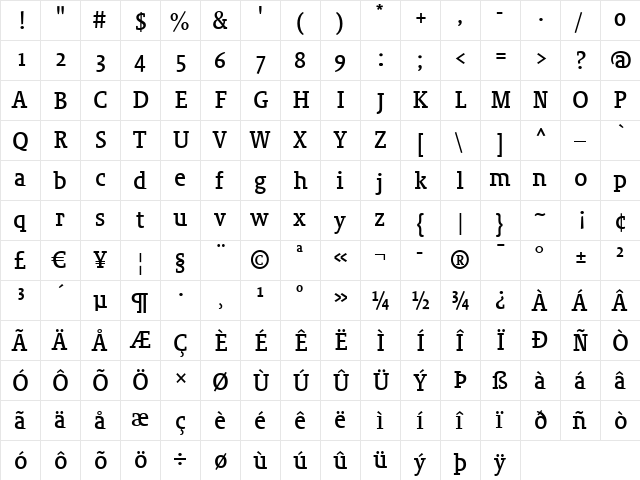
Sheriff Web-Roman Regular
| Designer | Peter Verheul |
Design Context for Sheriff Web-Roman Typeface
Sheriff Web-Roman offers clean, dependable letterforms without strong stylistic allegiance, making it a practical choice for designers who need flexibility.